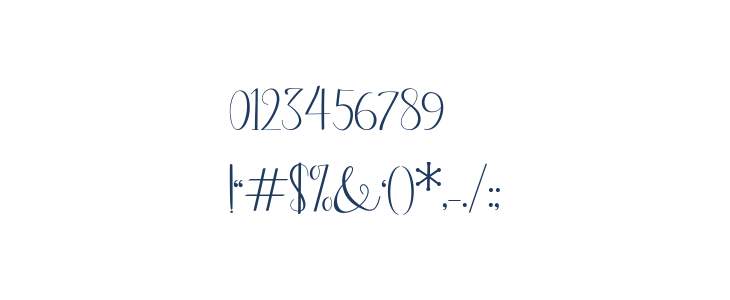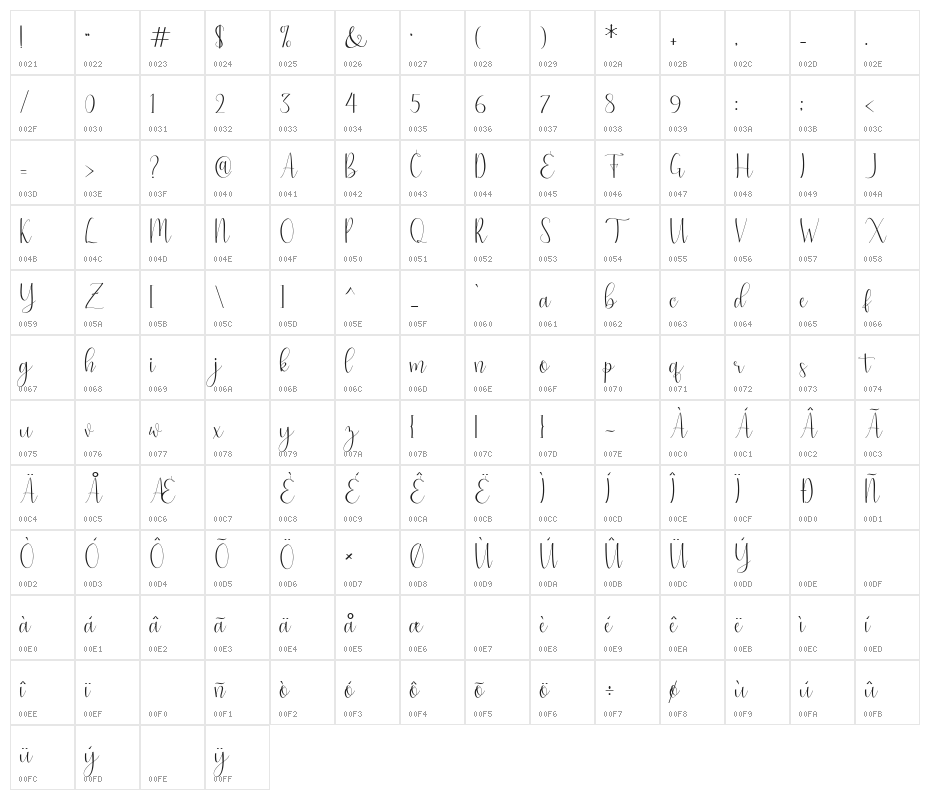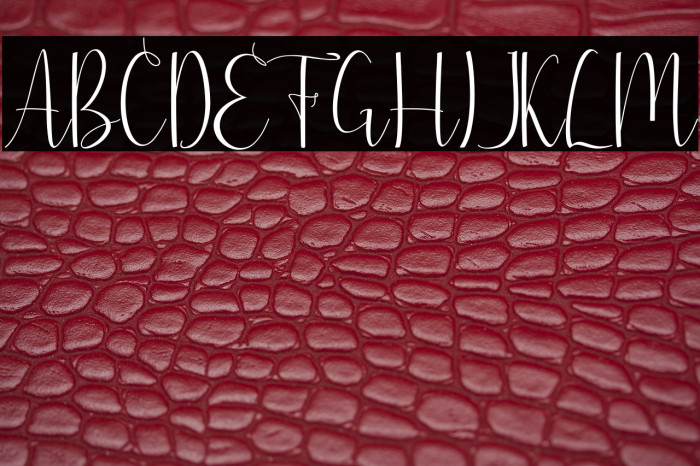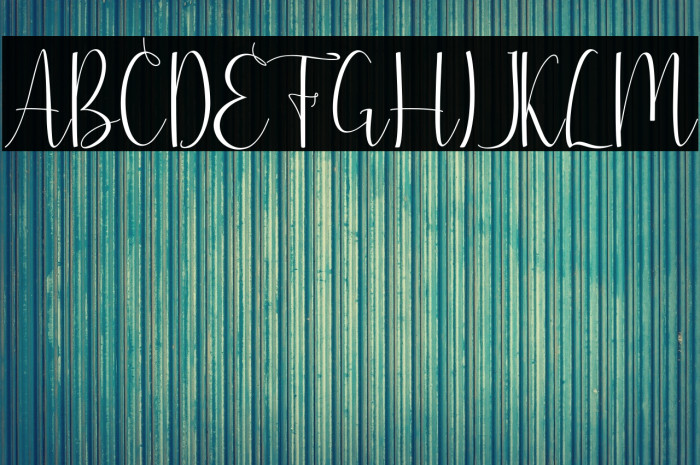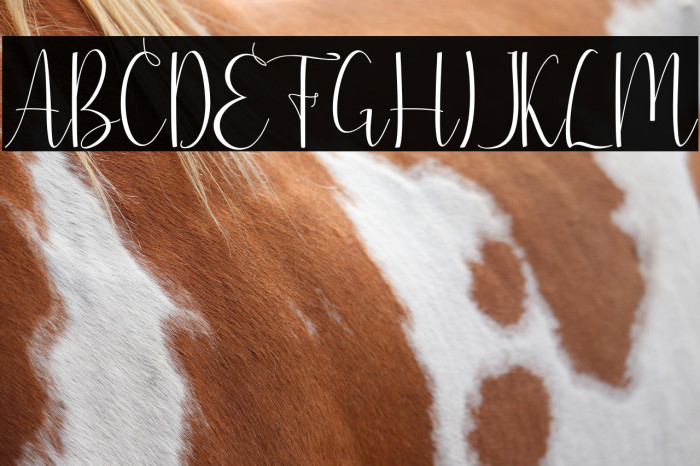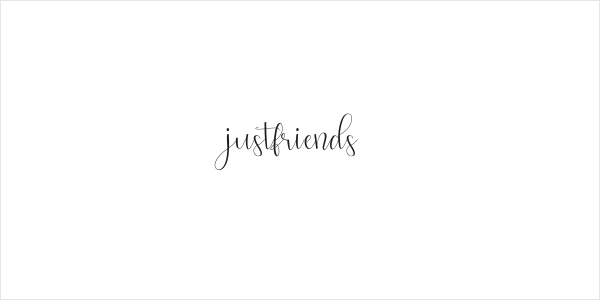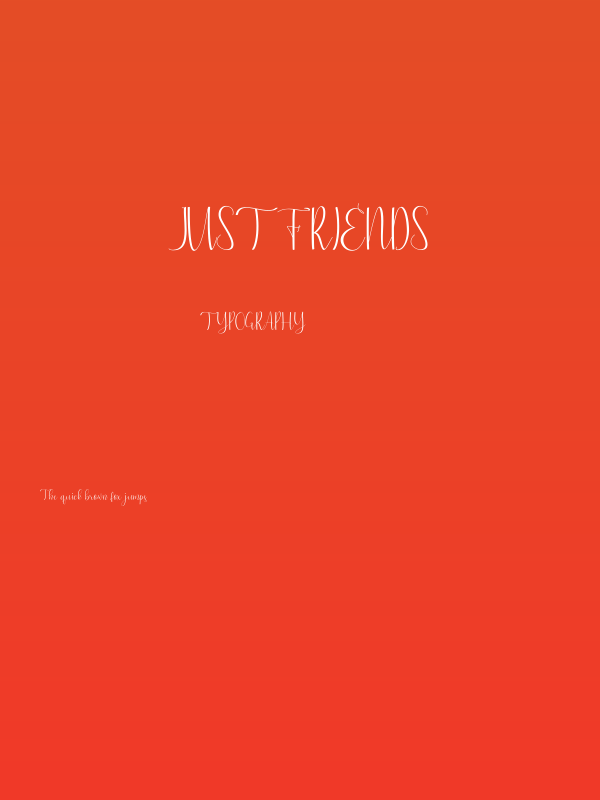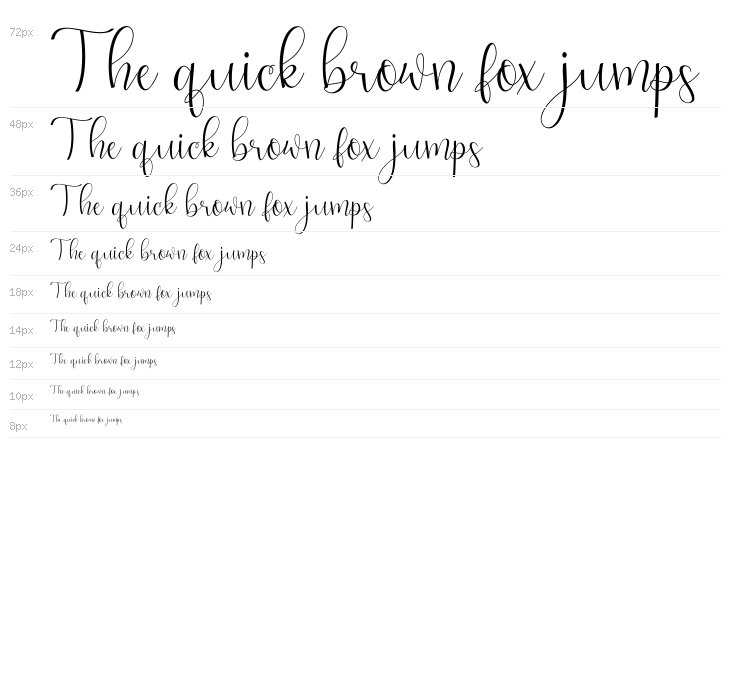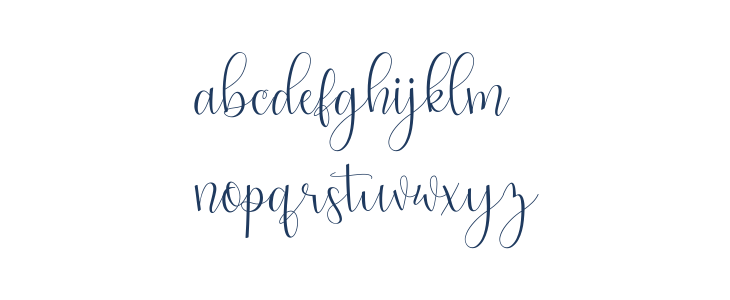
justfriends Font
justfriends Description
This font features an elegant and flowing script style, characterized by its graceful curves and loops. The uppercase letters are tall and slender, with a slight slant that adds a dynamic feel. The lowercase letters are more compact, maintaining the same fluidity and elegance. The numerals are consistent with the overall style, offering a harmonious blend of sophistication and readability. Special characters are designed with the same attention to detail, ensuring a cohesive look across all elements. This font is perfect for projects that require a touch of elegance and personality.
| Overall Style | Elegant, Decorative |
| Use Case | Logos, Invitations, Personal Stationery |
| Proposed Projects | Ideal for wedding invitations, elegant branding, greeting cards, and personal stationery. |